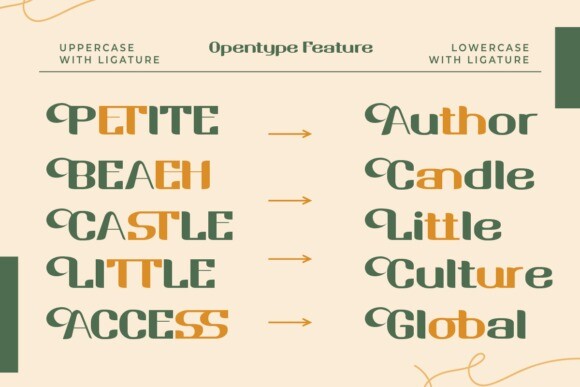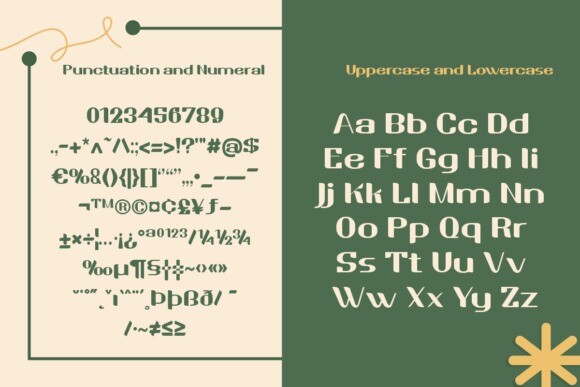
Krofi Font
Krofi is a retro-inspired sans-serif display font that embodies the bold and edgy look of mid-century modern design. Its thick and chunky letterforms are reminiscent of old-school posters and advertisements. The uniform strokes and geometric shapes give Krofi a distinct and powerful presence, making it perfect for designs that require a vintage or retro aesthetic, such as branding, packaging, or editorial design. Krofi is an excellent choice for headlines, titles, and other attention-grabbing design elements.